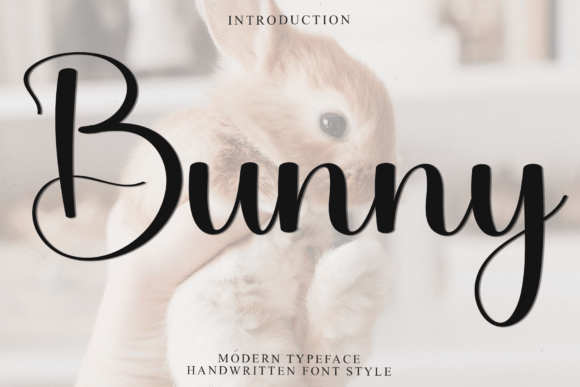
Discover the Whimsy of Bunny Font: Elevate Your Designs with a Touch of Softness
Have you ever been captivated by a font that makes your design feel like a warm hug? That’s exactly what happens when you work with the Bunny Font. This charming script font is designed to add a soft, unique touch to your creative projects, making them instantly memorable and engaging.
The Bunny Font is perfect for designers looking to inject a sense of personality into their work. With its distinctive strokes and varied characters, it’s an ideal choice for crafting unique logos, labels, and other design elements. Whether you’re working on a branding project, crafting handmade cards, or creating digital art, the Bunny Font is sure to bring a touch of magic to your designs.
Bunny Font Key Features
- Character Count: The font includes over 300 unique characters, including uppercase and lowercase letters, numbers, and special symbols, making it suitable for a variety of applications.
- Unique Characteristics: The Bunny Font features a playful, hand-drawn style with bold lines and rounded edges, giving it a friendly and approachable feel. The font is also highly customizable, allowing users to adjust the weight, width, and spacing to suit their needs.
Bunny Font Review
I recently had the chance to work with the “Bunny Font” and I must say it’s an interesting font. Here’s my honest review.
- The Bunny Font has a playful and whimsical feel to it, which is perfect for children’s books, cartoons, or any project that requires a lighthearted tone.
- The font is highly customizable, allowing designers to adjust the size, color, and style to fit their needs.
- The font is relatively easy to read, even at smaller sizes, making it suitable for a wide range of applications.
- The Bunny Font may not be suitable for formal or professional projects, as its playful nature may come across as unprofessional.
- The font’s characters may not be as precise or detailed as other fonts, which could be a problem for projects that require a high level of accuracy.
The Bunny Font is a fun and creative font that can add a touch of whimsy to any project. While it may have some limitations, it’s perfect for designers who want to add a playful touch to their work. With some careful consideration of the font’s limitations, I think the Bunny Font can be a great addition to any designer’s toolkit.
To get the most out of the Bunny Font, use it for playful and whimsical designs, such as children’s book illustrations, Easter-themed decorations, or cartoon-style graphics.
For a more cohesive look, pair the Bunny Font with other playful fonts or illustrations that evoke a sense of fun and adventure.